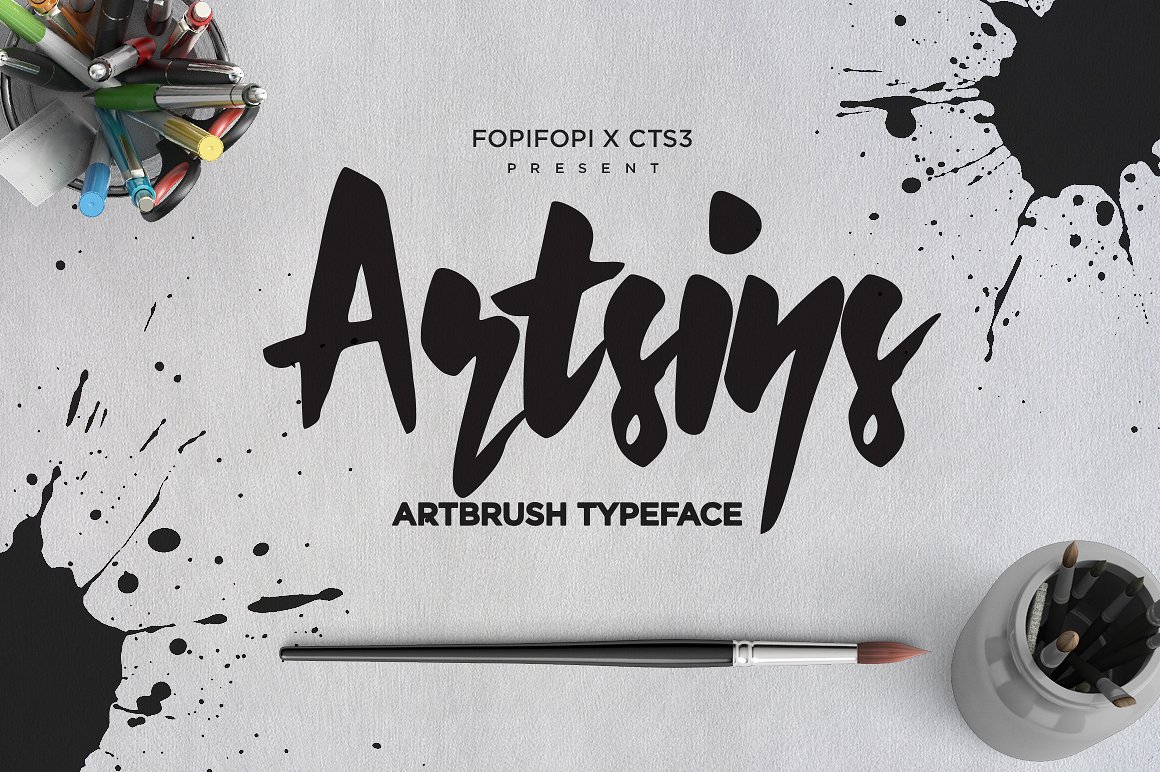
Artsins Typeface
Heeeeey, artsy people! We’re so excited about this collaboration with CTS3. We named it Artsins as in: “artbrush that tastes like sins”
ARTSINS Typeface is an artistic typeface, inspired by the handwritten of some artist. You can use Artsins Typeface in any settings; books, tee design, titling on movie, poster, cd cover for kid’s song album, sign for the kid’s area, etc.